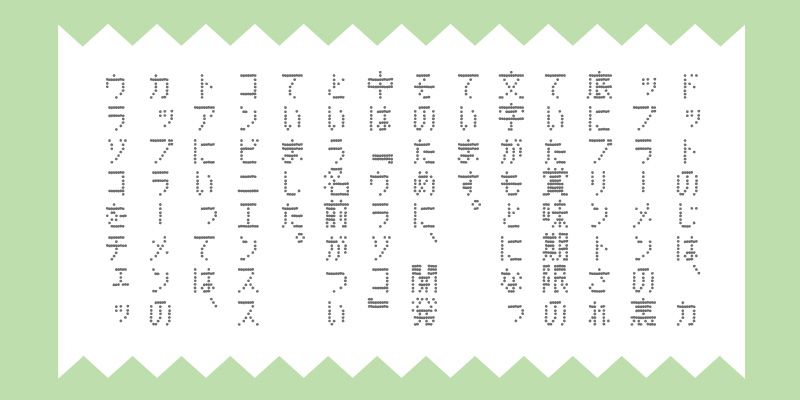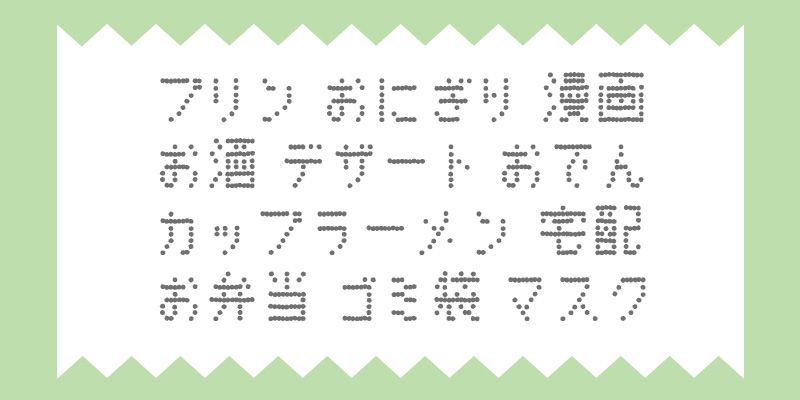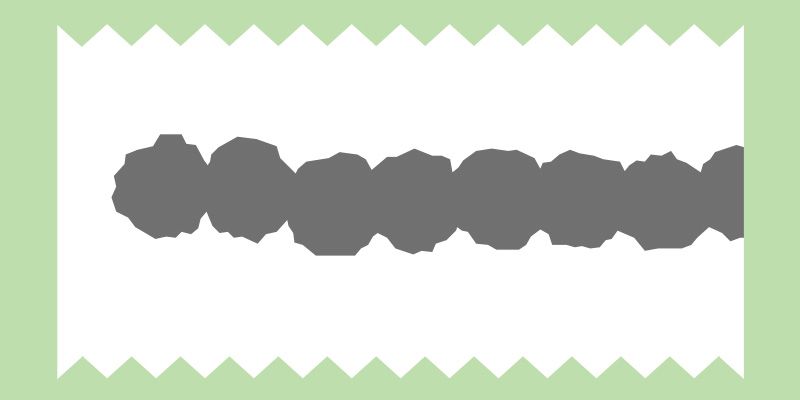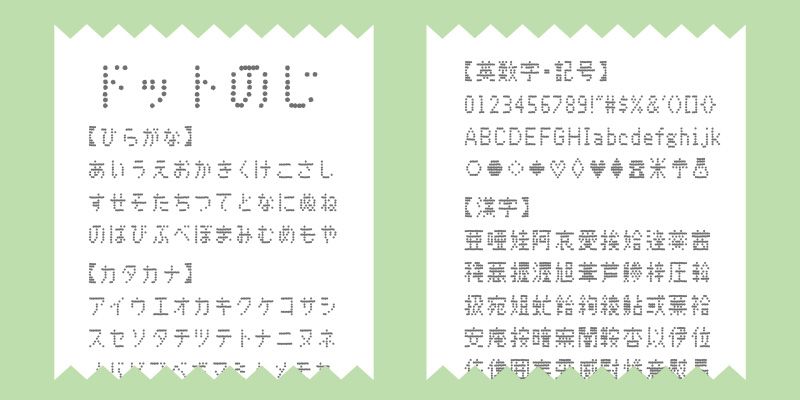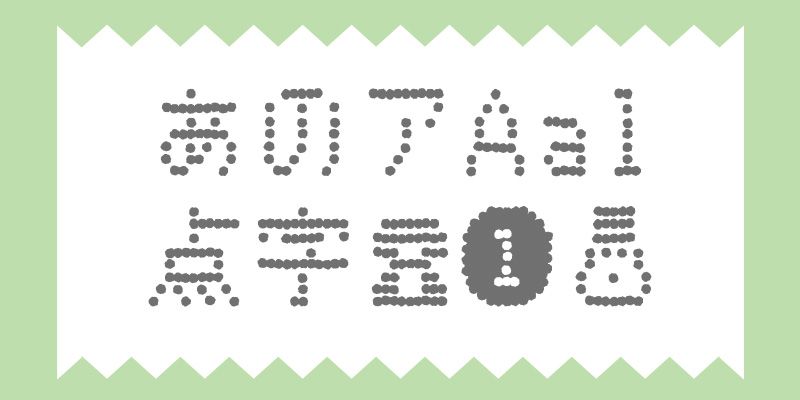
Inspired by the retro look of dot-matrix printers, this typeface offers a nostalgic yet distinctive style. With around 9,500 characters including Hiragana, Katakana, Latin letters, symbols, and Kanji, it’s ready for versatile use.